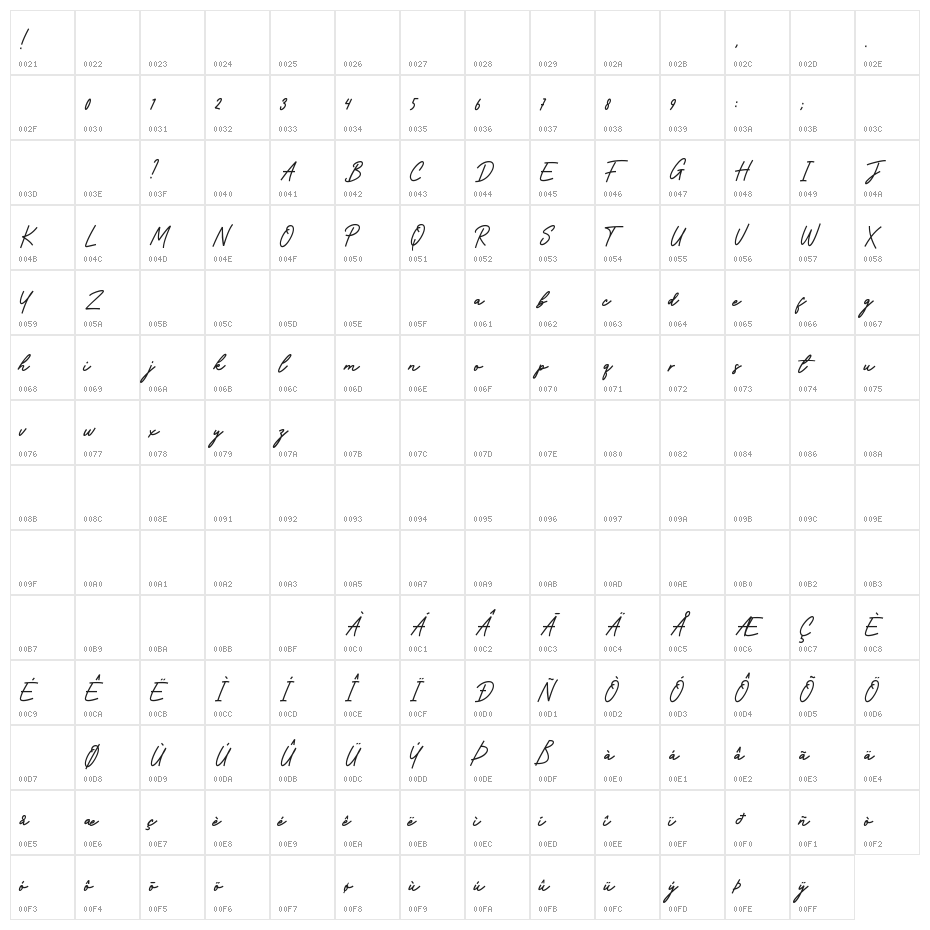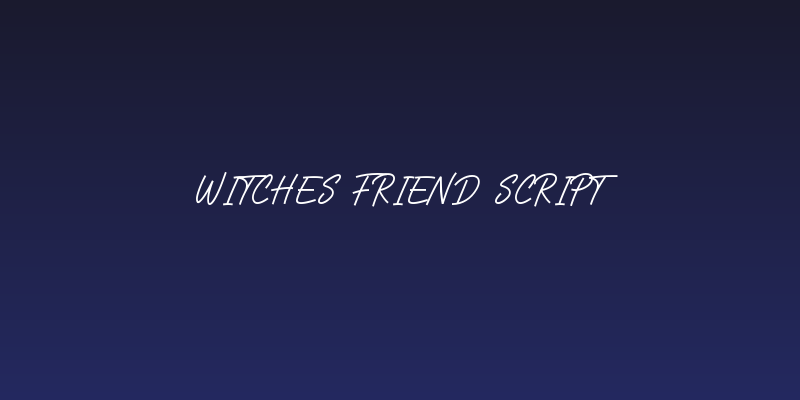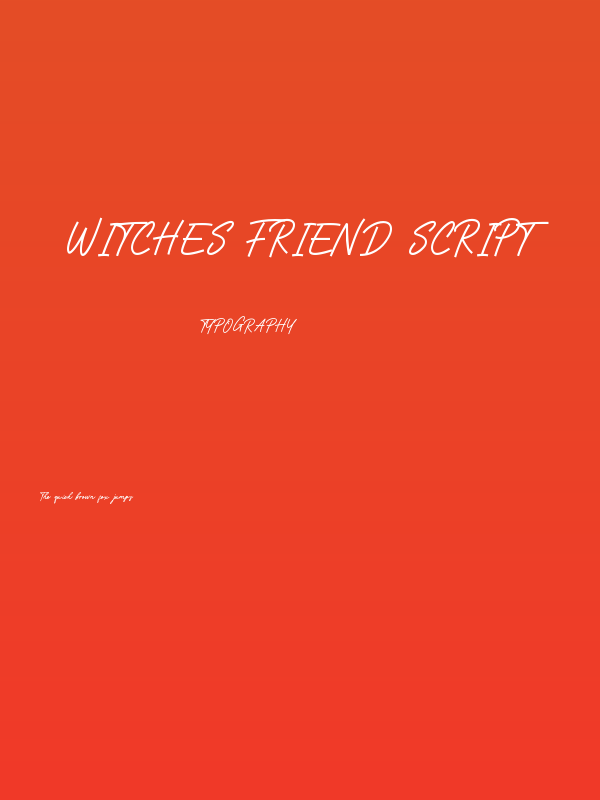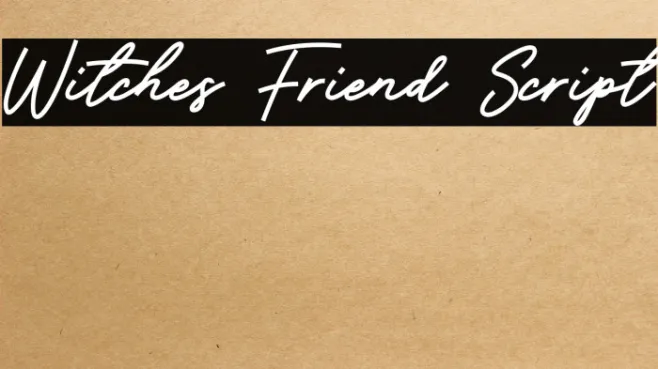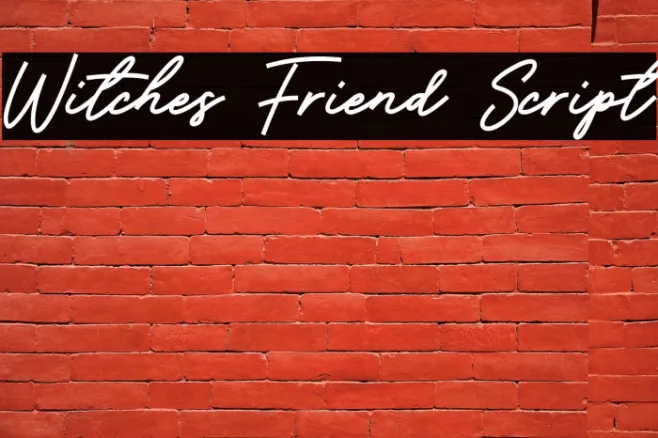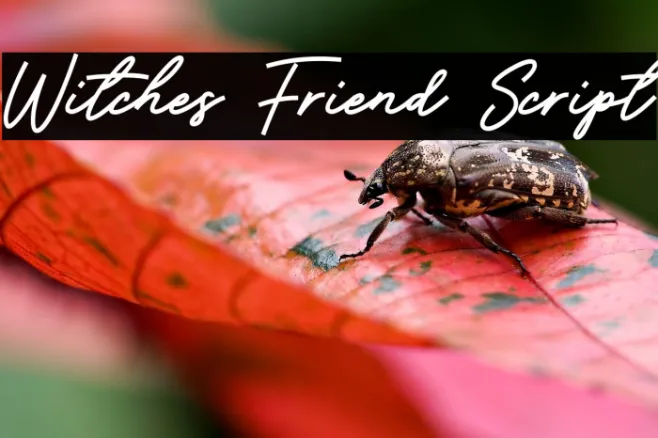
Witches Friend Script Font
Witches Friend Script Description
This font exudes a whimsical and enchanting charm, characterized by its fluid, cursive strokes and elegant script style. The uppercase letters are slightly slanted, giving a sense of motion and grace, while the lowercase letters maintain a consistent flow, enhancing readability. The numerals are clear and distinct, complementing the overall aesthetic. Special characters are crafted with the same attention to detail, ensuring a cohesive look across all elements. This font is perfect for adding a touch of magic and personality to any project.
| Proposed Projects | Ideal for invitations, greeting cards, branding, and any project requiring a magical or personal touch. |